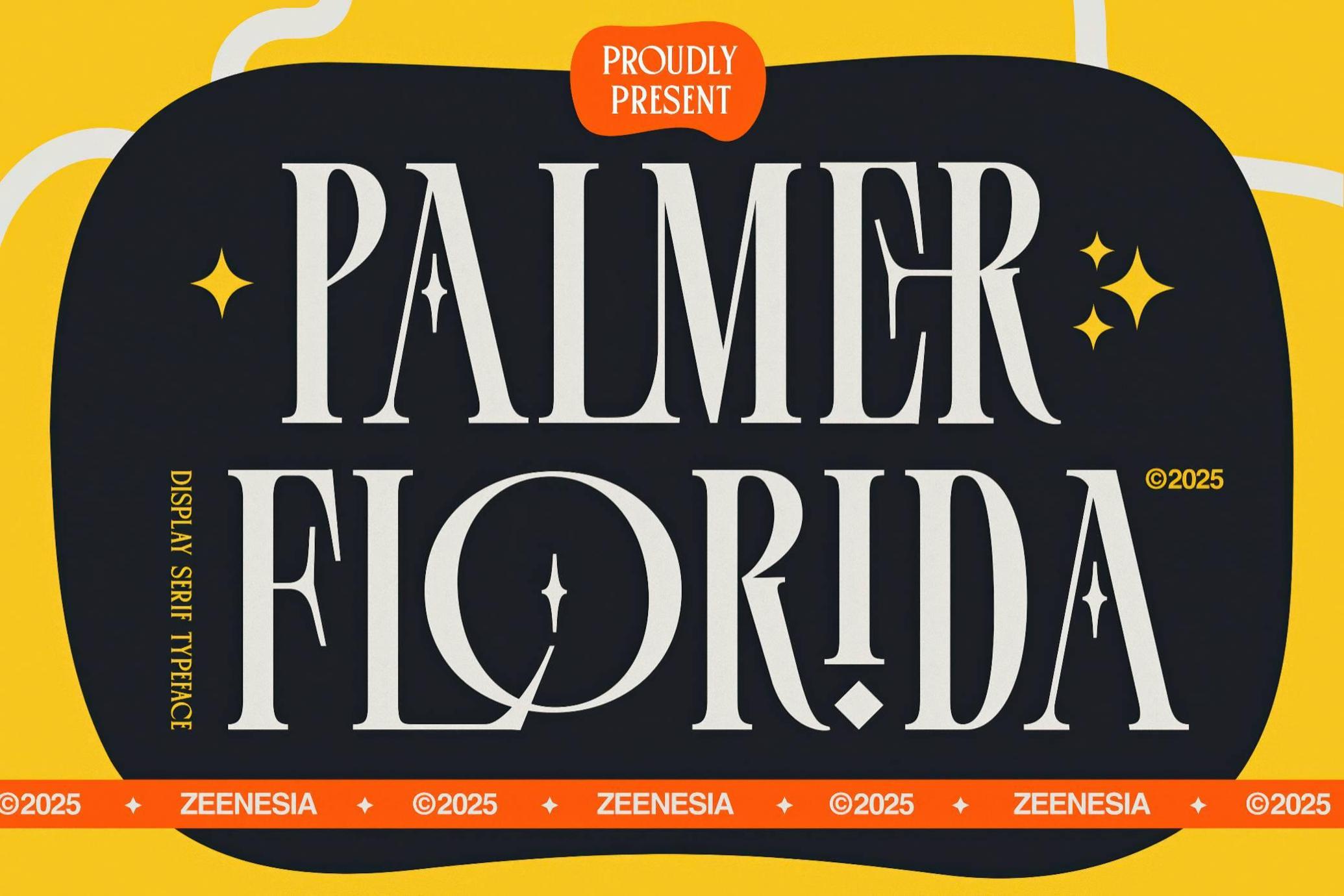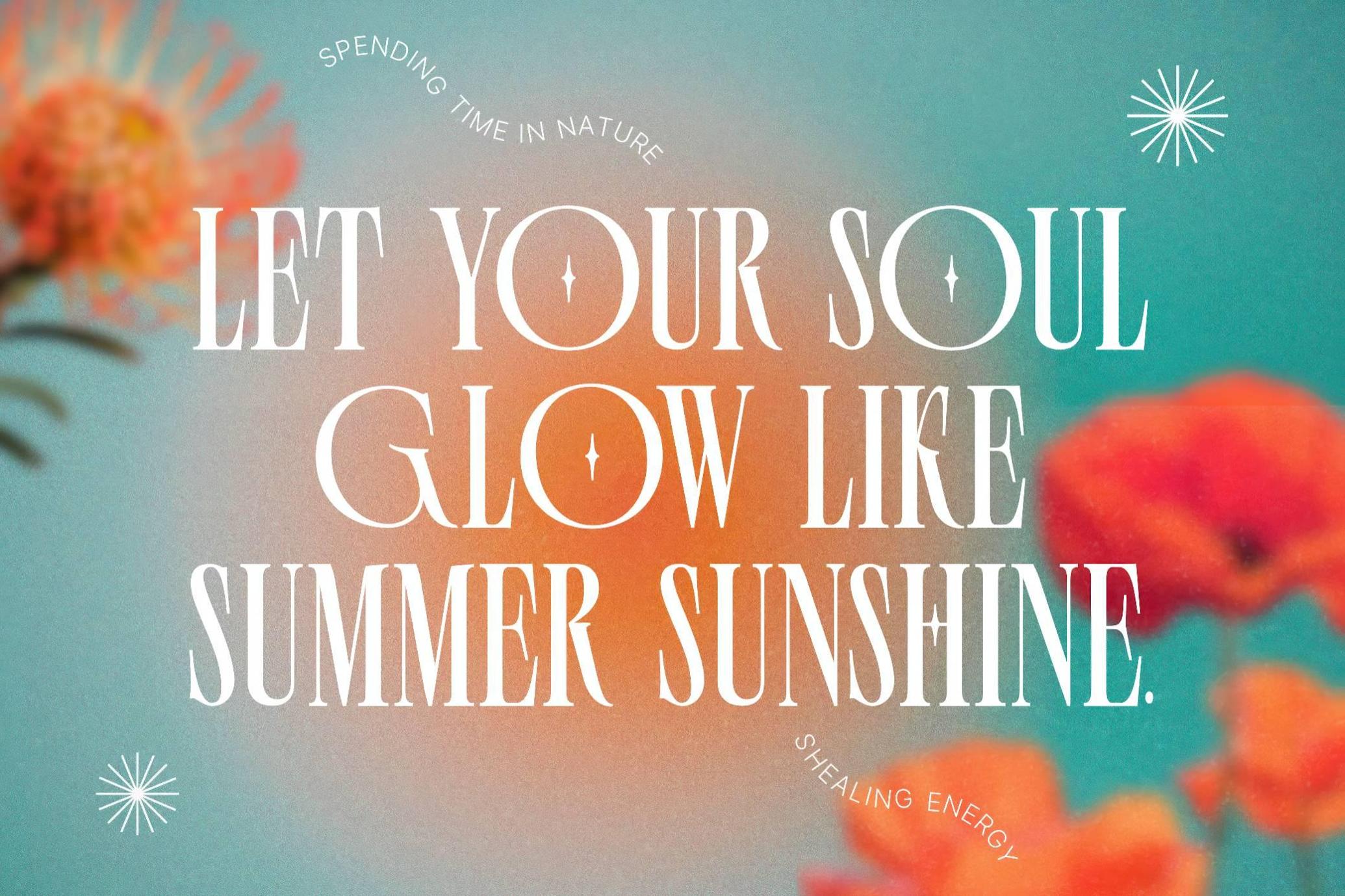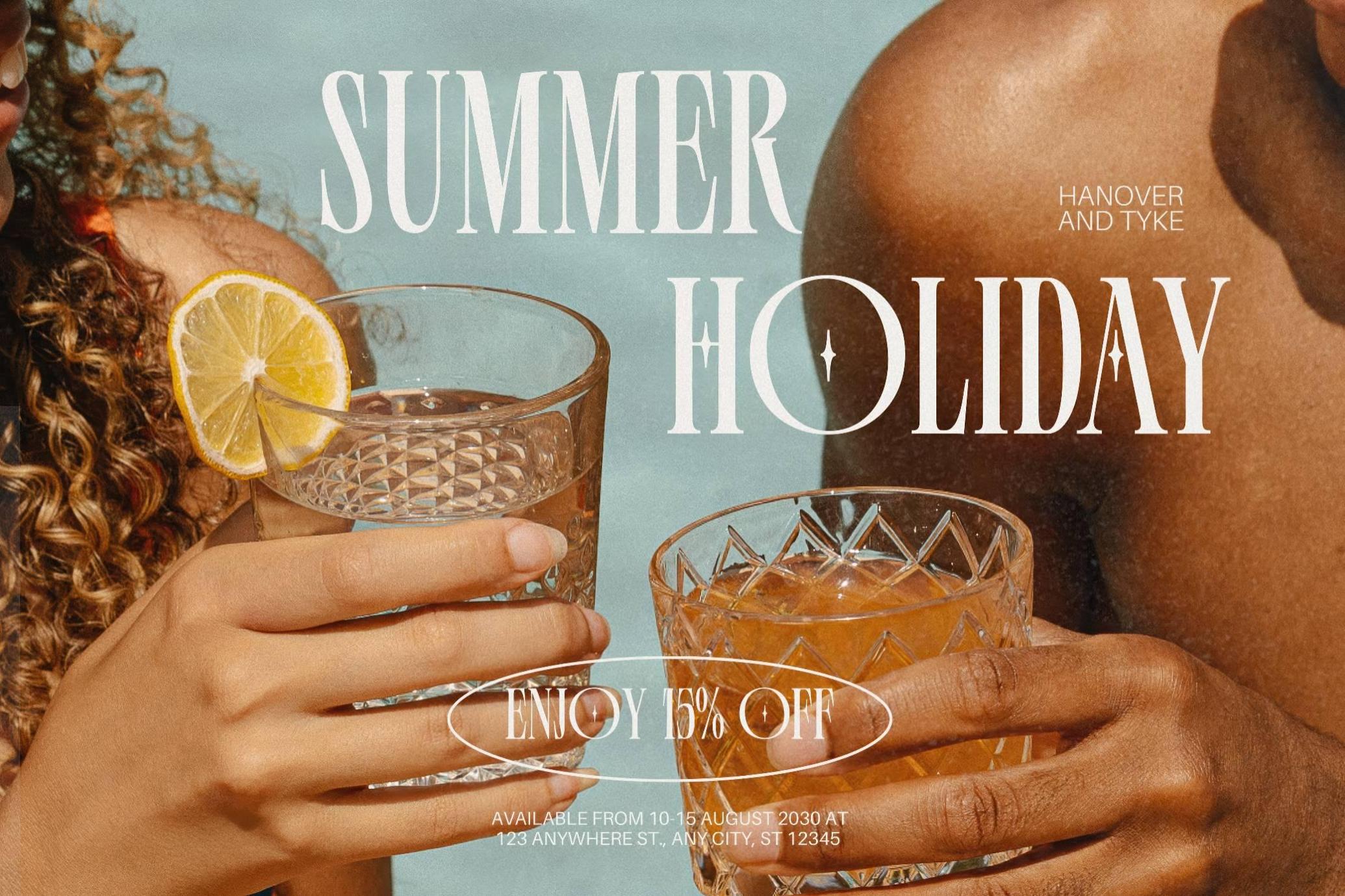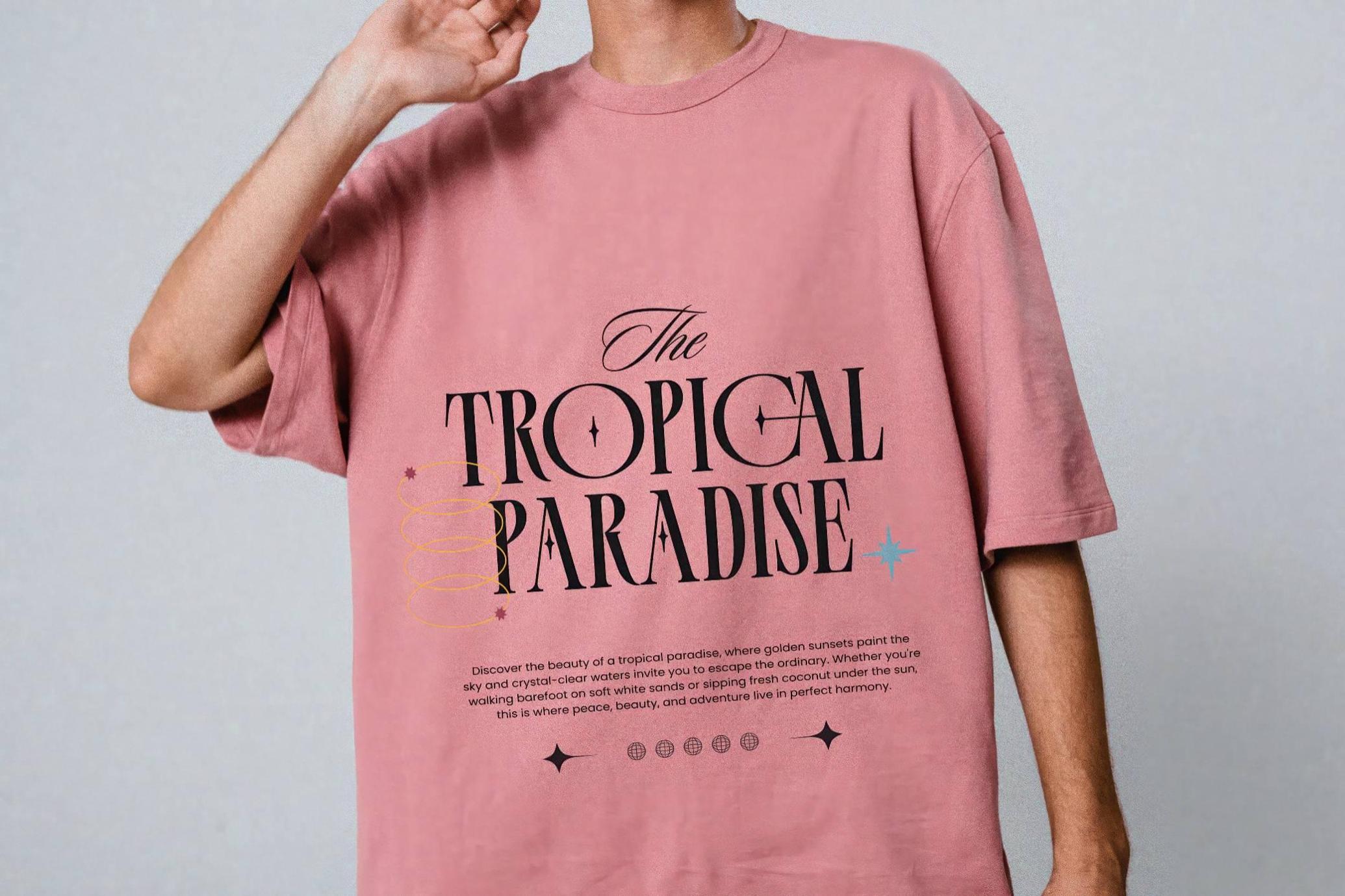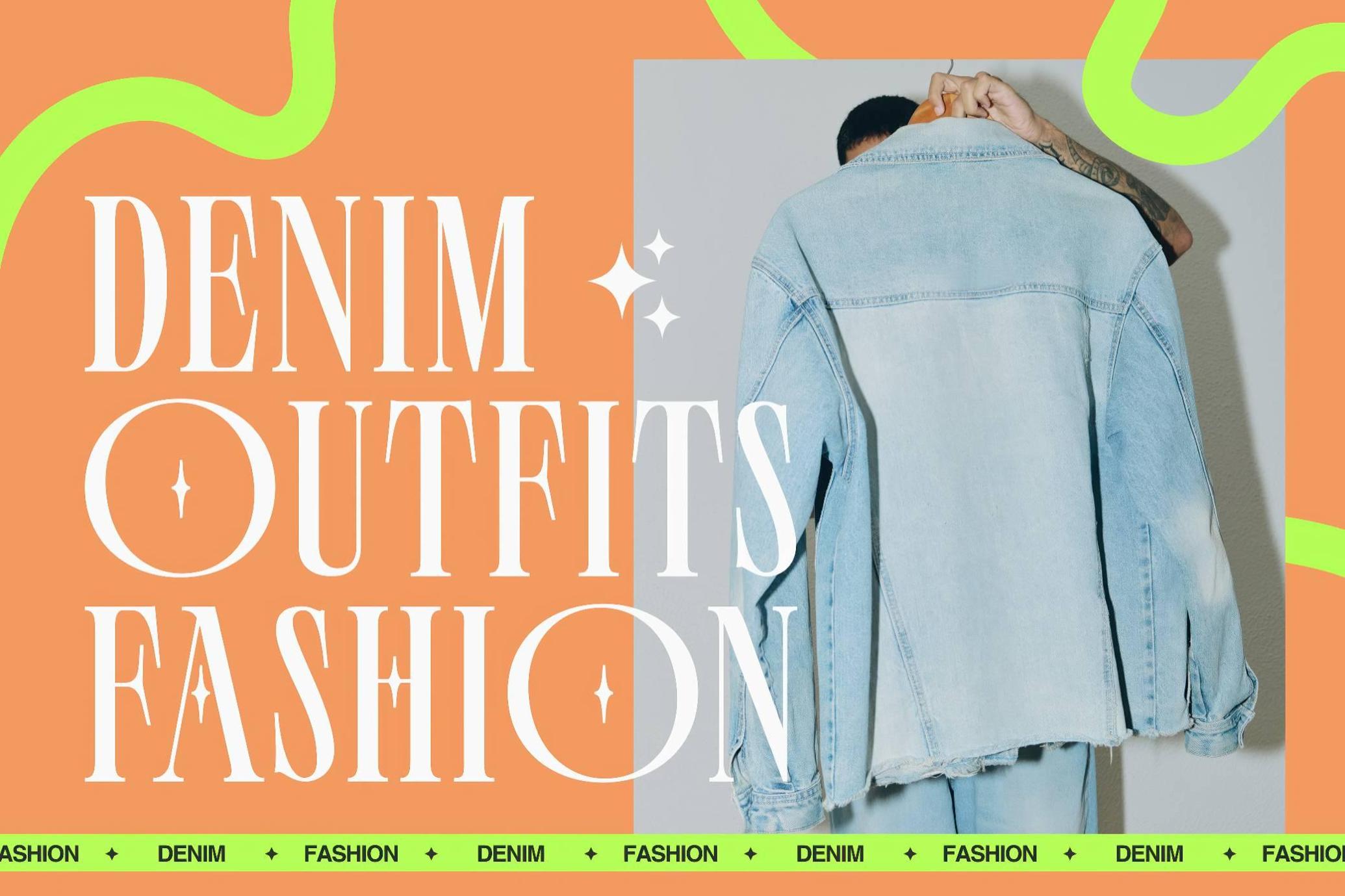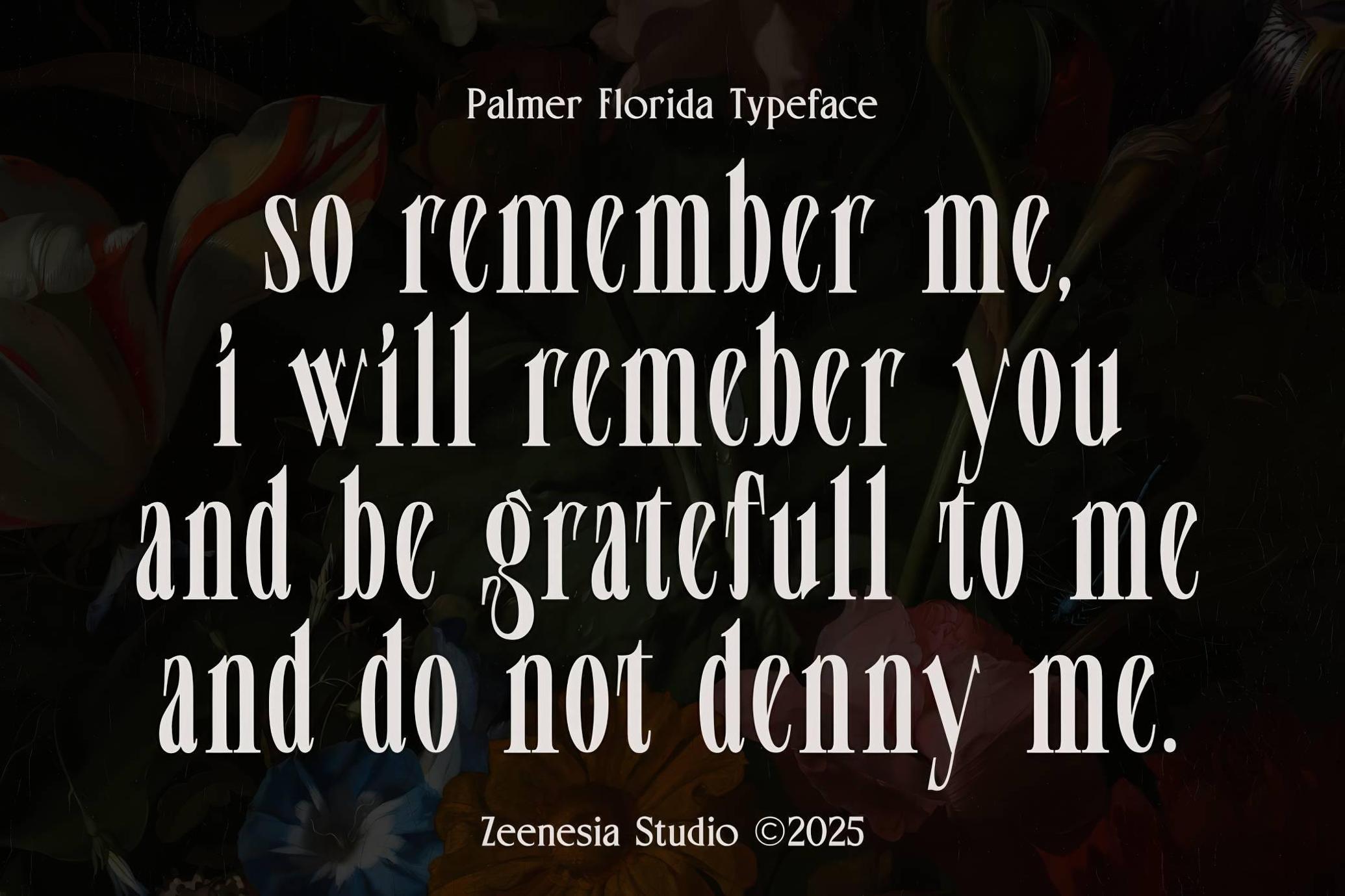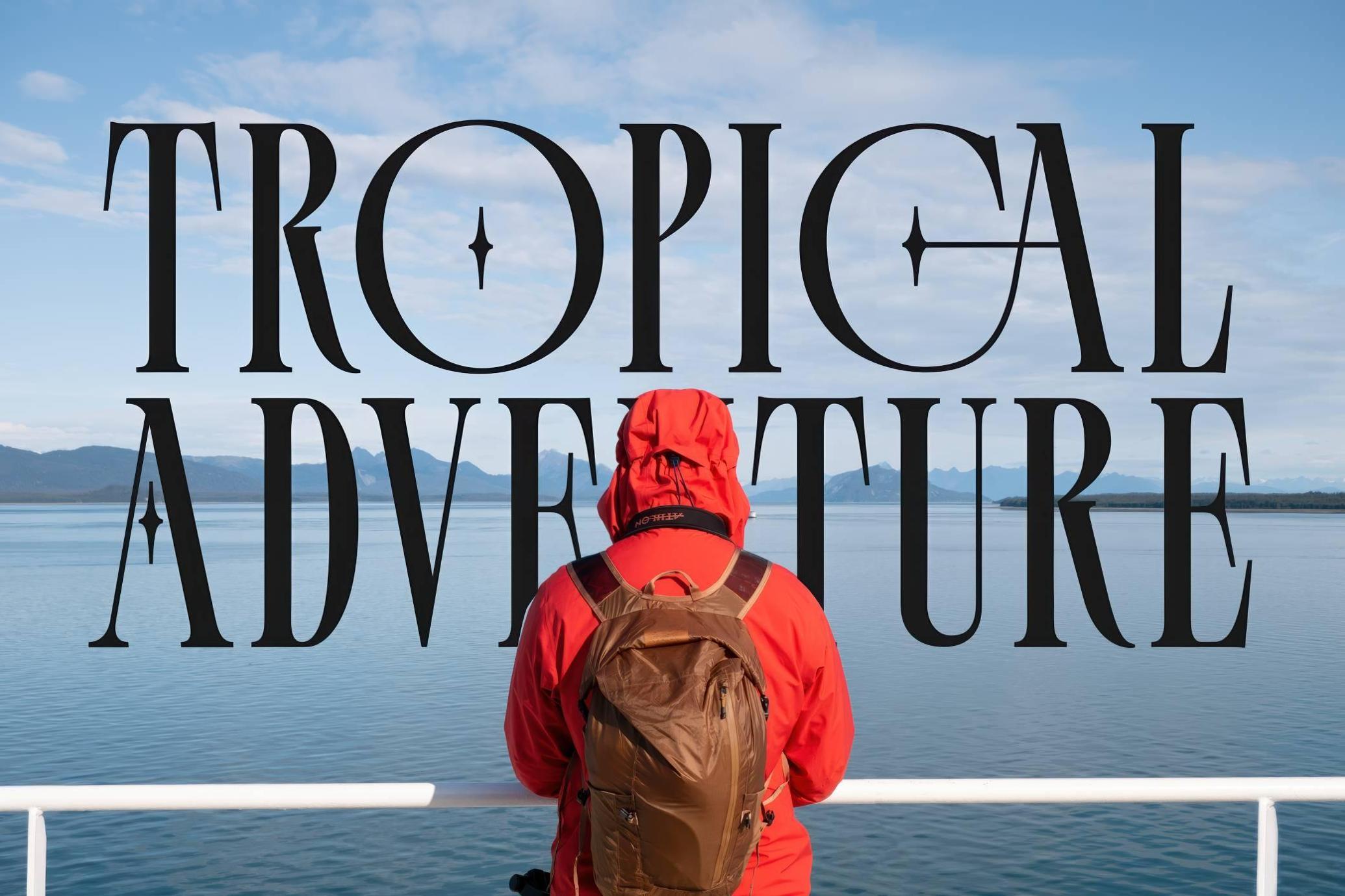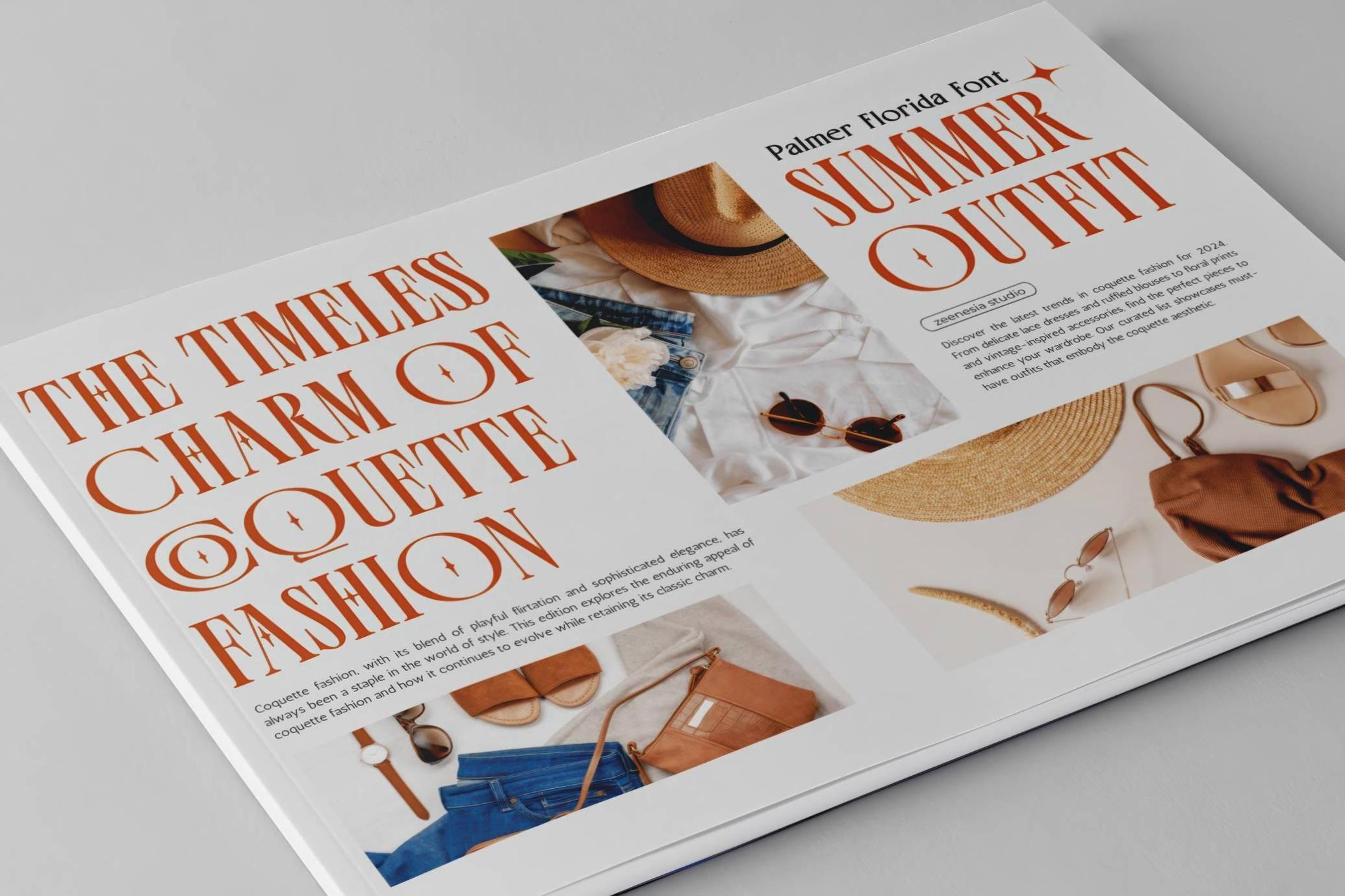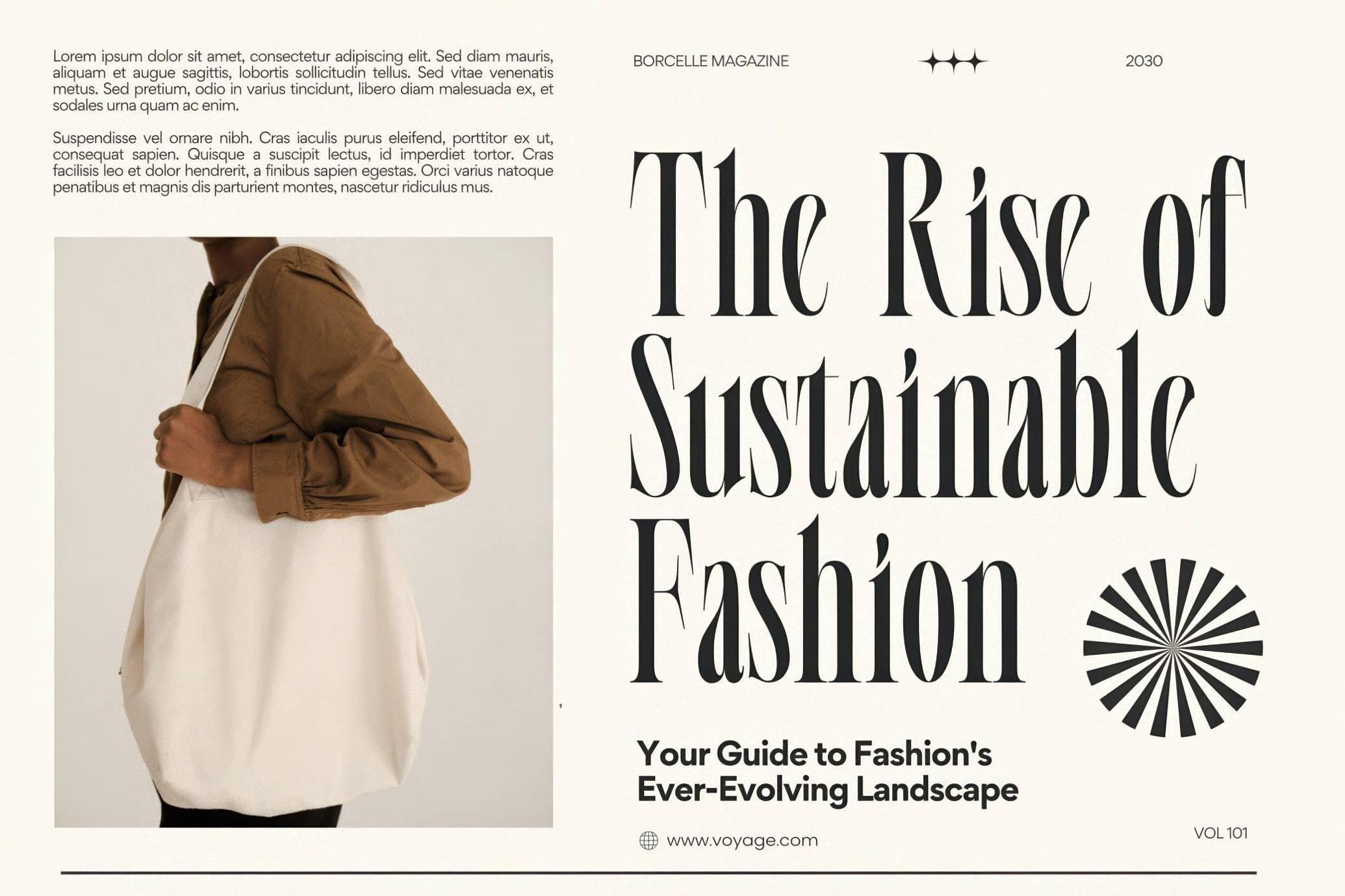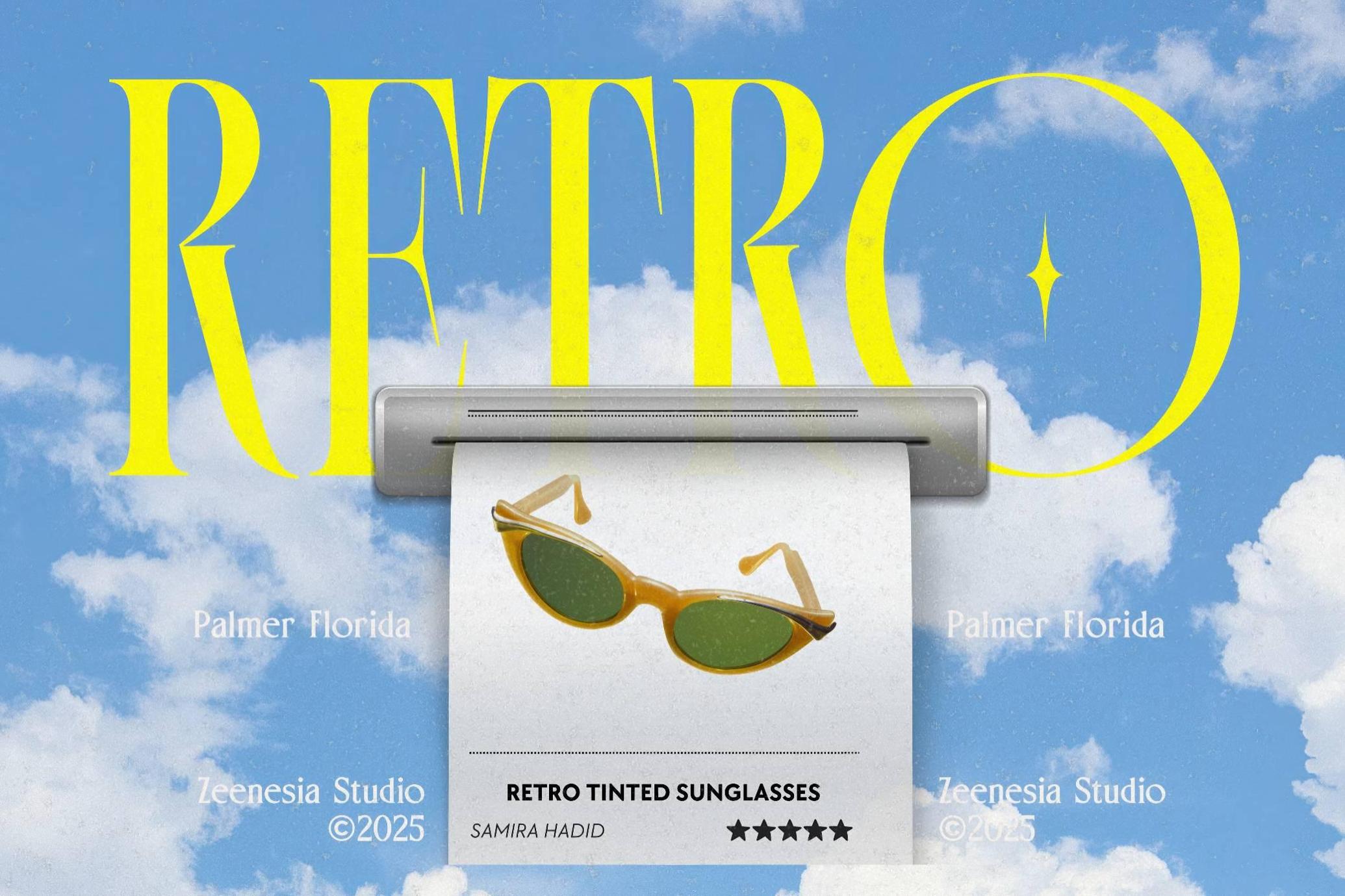
Palmer Florida Display Serif
Palmer Florida leans into theatrical contrast with a high-contrast serif structure. Its tall, flared letterforms are punctuated by pointed spurs, mid-stem tapers, and ornamental diamond motifs — all built for visual drama. Despite the decorative flourishes, the rhythm stays even and highly readable, especially at larger sizes.
Perfect for magazine covers, resort branding, fashion editorials, event posters, packaging for cosmetics or fragrance, social campaigns, music visuals, or boutique signage. The alternate ligatures and stylistic sets make it easy to craft distinct, richly styled typography.